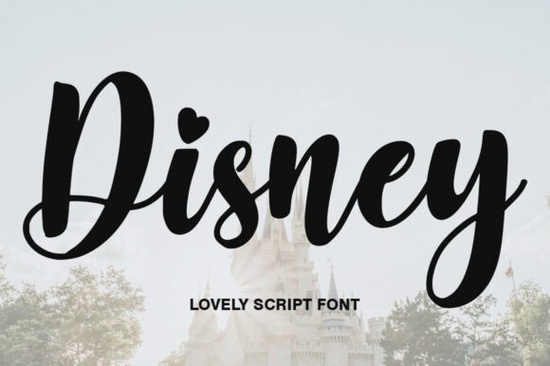
If you’ve ever wanted to add a touch of whimsy and charm to your designs without straying too far from clean, modern aesthetics, the Disney Font might be exactly what you’re looking for. While it’s not affiliated with The Walt Disney Company, this script font captures that familiar sense of playful elegance think flowing letterforms, gentle curves, and just enough flair to stand out without overwhelming your layout. It’s especially popular among designers creating invitations, branding elements, or print-on-demand products that need a soft, hand-lettered feel.
What makes this font versatile is how well it pairs with both minimalist and ornate design styles. Whether you're crafting wedding stationery, custom mugs, or social media graphics, the Disney Font adapts smoothly. Its open-type features (like contextual alternates and ligatures, if included) can add subtle personality to each word, making even simple phrases feel uniquely crafted.
Who is this font best suited for?
Creative hobbyists, small business owners, and crafters often look for fonts that are easy to use but still distinctive. The Disney Font fits that sweet spot it’s legible at small sizes yet shines when used larger for headlines or quotes. Print-on-demand sellers appreciate how it photographs well on mockups, while digital planners and sticker designers find its rhythm ideal for decorative accents.
How does it compare to similar script fonts?
Not all script fonts strike the right balance between readability and style. Some lean too formal; others feel overly casual. The Disney Font lands comfortably in the middle. For example, if you like the delicate flow of White Heart but need something slightly bolder for product packaging, Disney offers more presence without losing grace.
Similarly, if you’ve used Cursive Delight for its smooth connectivity and are looking for a font with more character variation, Disney provides that extra dimension. And unlike western-inspired scripts like Western Font, which bring rustic energy, Disney maintains a timeless, almost storybook quality that works across seasons and themes.
For those building a diverse font library, consider pairing it with structured sans-serifs or classic serifs to create visual hierarchy. Avoid stacking multiple elaborate scripts together they can compete rather than complement.
Where can you use it effectively?
Thanks to its clean lines and moderate swashes, the Disney Font performs well in both digital and physical formats:
- Invitations & greeting cards – Especially for birthdays, baby showers, or anniversary events where warmth matters.
- Branding for boutique businesses – Think bakeries, florists, or handmade skincare brands aiming for a personal touch.
- Print-on-demand merchandise – From tote bags to phone cases, short inspirational quotes (“Dream Big,” “Be Kind”) look effortlessly stylish.
- Digital planners & worksheets – Use it for headers or motivational prompts without sacrificing readability.
Fonts like Disney work best when they support your message, not distract from it. Use it thoughtfully, and it’ll add just the right amount of magic.